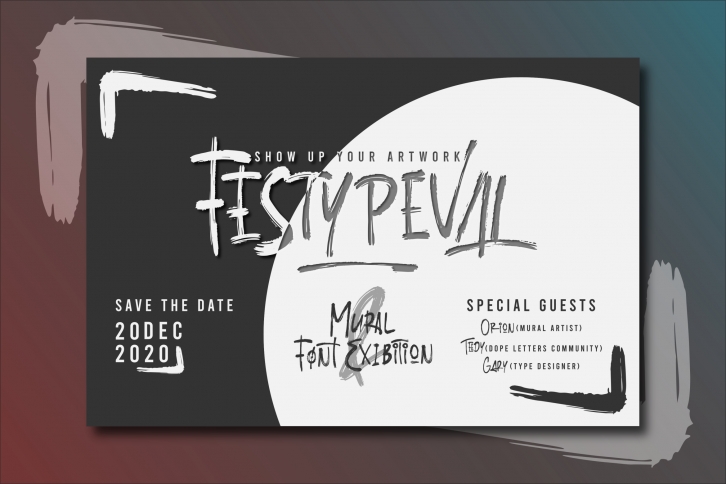
"The Locosta" is a font display is made by hand, inspired by classic posters.
comes with uppercase, lowercase, numerals, punctuations and so many variations on each character include OpenType alternates, common ligatures and also additional swash to let you customize your designs. Perfect to use for Logotype, Letterhead, Poster, Apparel Design, Label and etc.